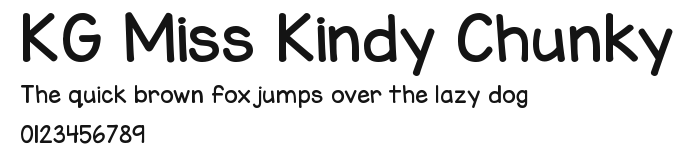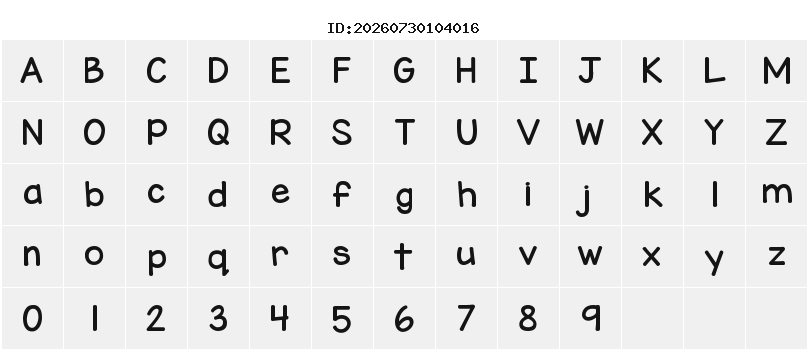
• Font Name: KG Miss Kindy Chunky
• Full Font Name: KG Miss Kindy Chunky
• Designer: Kimberly Geswein
• Manufacturer: Kimberly Geswein
About KG Miss Kindy Chunky.ttf
KG Miss Kindy Chunky.ttf is a modern, elegant sans-serif font designed for ultimate readability and visual harmony. Perfect for branding, headlines, web design, and print materials.